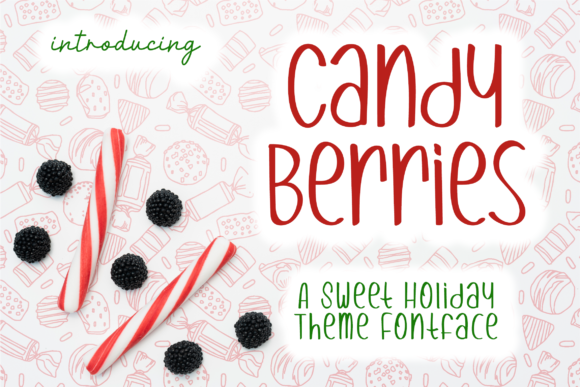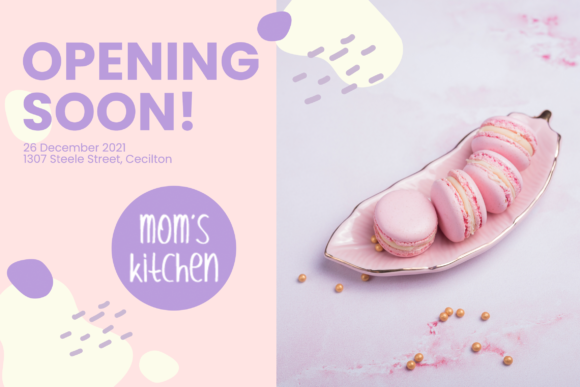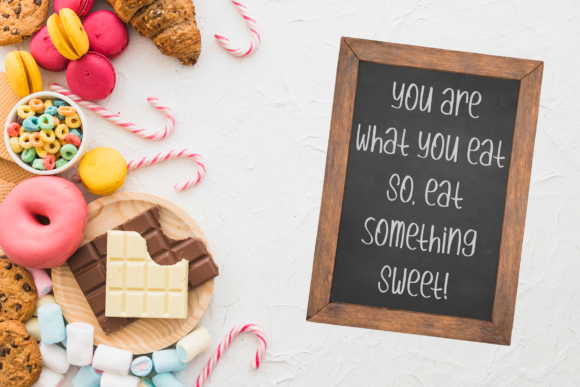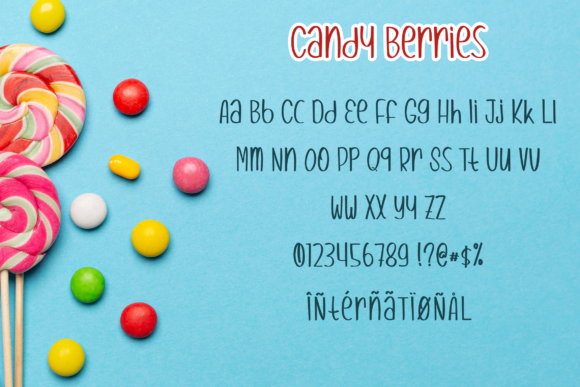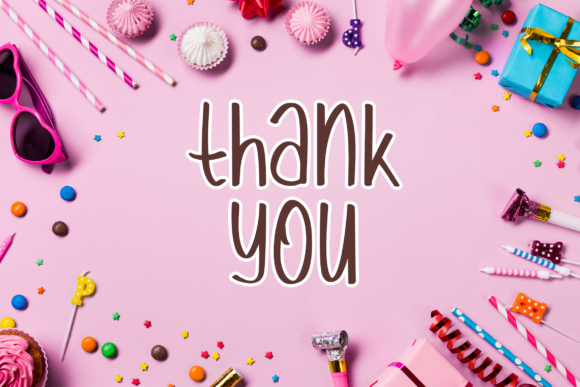
Candy Berries Font
About Candy Berries Font
Candy Berries is a cute handwritten holiday-themed font that you can use all year round. Add this beautiful script font to each of your creative ideas, and notice how it makes them stand out! Whether it’s for web posting, printing, moving images, or anything else, Candy Berries will give a spectacular look and incredibly joyful feel to your designs.